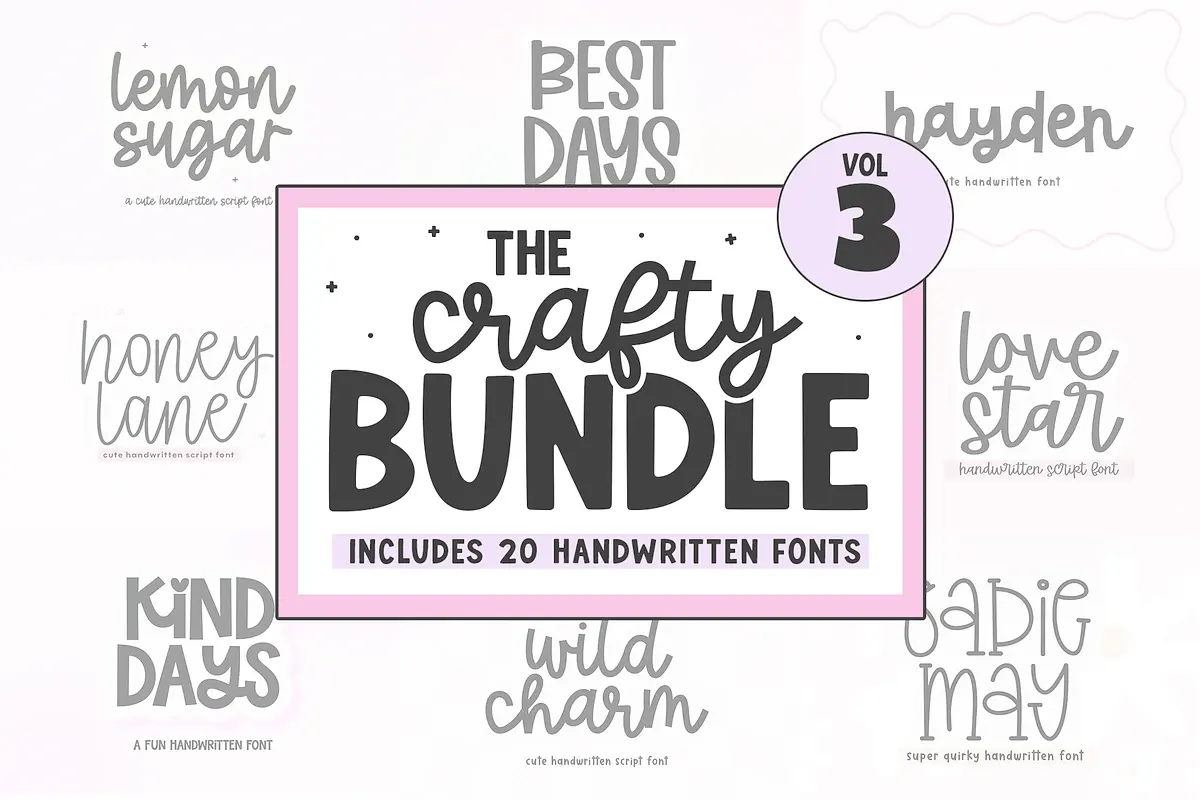
Crafty Font Bundle | Volume 3 Free Download
Crafty Font Bundle | Volume 3 Free Download is a versatile collection of hand-crafted fonts designed to add personality and charm to your creative projects. Featuring a variety of unique styles, from playful scripts to bold display fonts, this bundle is perfect for logos, branding, invitations, posters, and more. Whether you're working on a crafty event, a fun product, or a creative campaign, Crafty Font Bundle | Volume 3 Free Download provides the perfect fonts to make your designs stand out. The variety of fonts within this collection allows for endless creative possibilities, making it a must-have for any designer. Test the fonts in personal projects before purchasing a commercial license and elevate your work with this beautifully crafted font bundle.